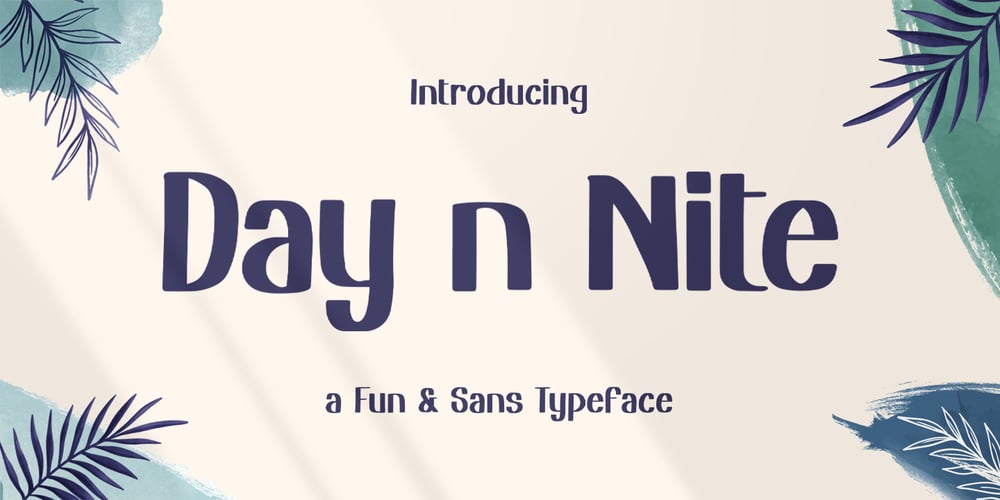
Day N Nite Font Family was designed by Hilmius Akbar and published by Typefactory. Day N Nite contains 1 styles and family package options. Day n Nite is a playful display font.It has a cheerful look that will elevate your crafting projects to the highest level, be it branding, headings, wedding designs, invitations, signatures, logos, labels, and much more!